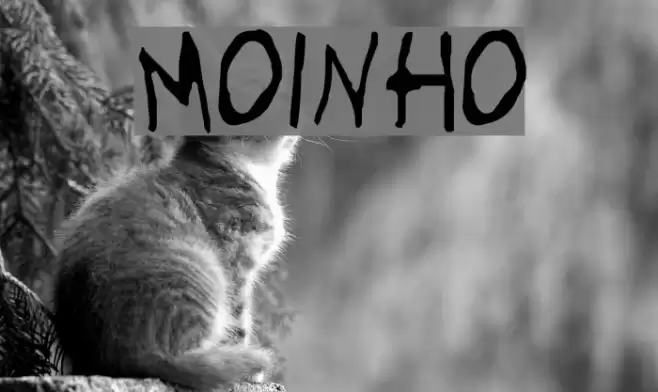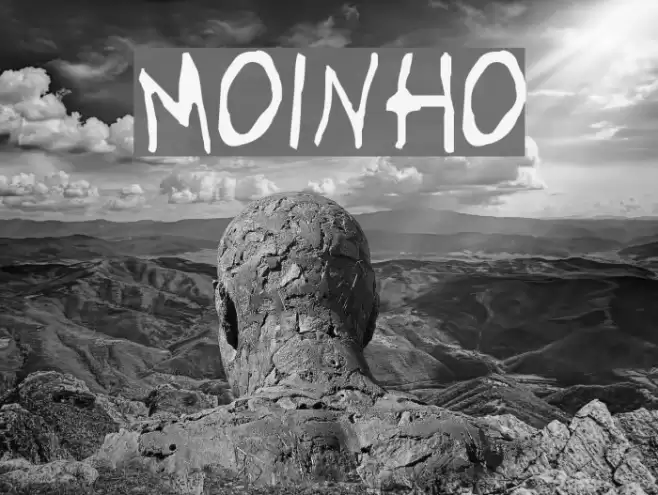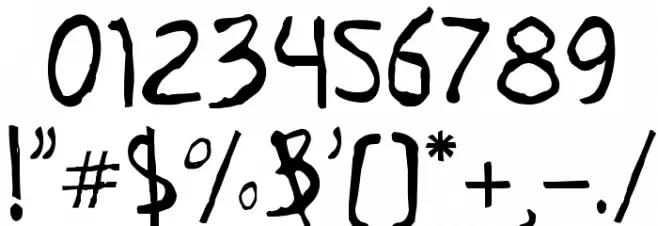
Moinho Font
Moinho Description
This font exhibits a bold, hand-drawn style with a playful and slightly chaotic appearance. The characters are irregular in shape, giving an organic and spontaneous feel. The strokes are thick and uneven, contributing to a sense of energy and movement. The uppercase and lowercase letters maintain a consistent style, while the numerals and special characters add to the font's quirky charm. This font is ideal for projects that require a personal touch or a sense of informality.
A bold, hand-drawn font with a playful and energetic style from Uncategorized fonts.
- Proposed Projects: Suitable for children's books, comic strips, informal posters, and creative branding.